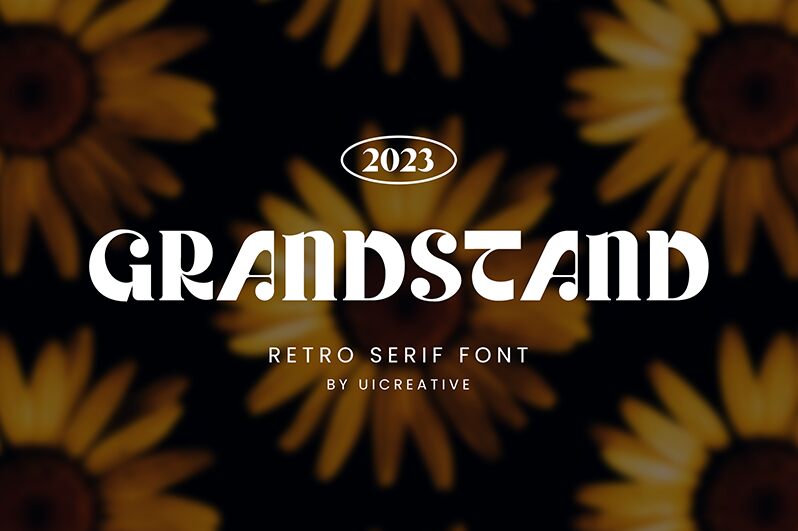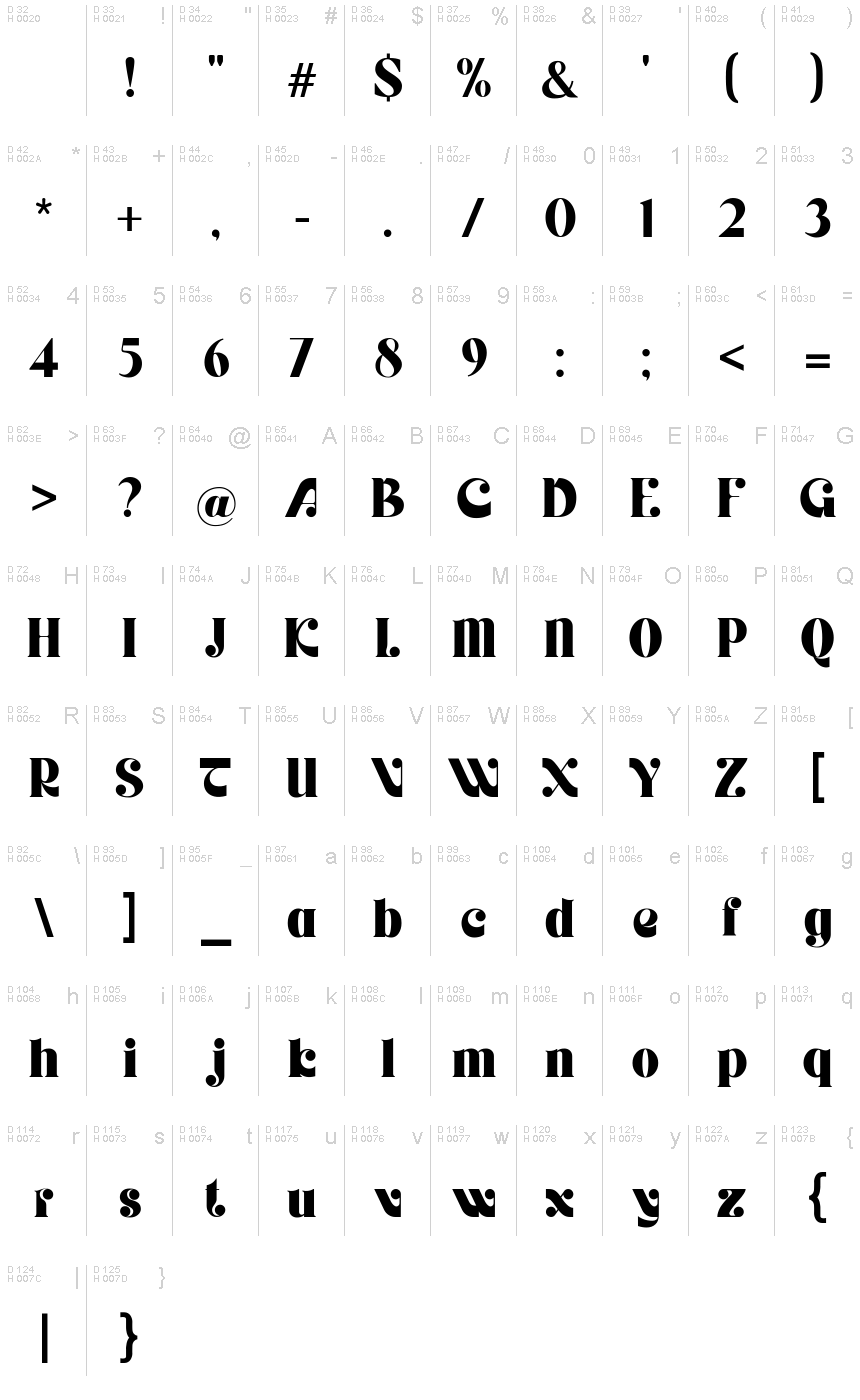
Grandstand, a bold and retro-inspired display font crafted by UI Creative, embodies a captivating vintage aesthetic. With its striking letterforms and robust character, this font exudes an alluring sense of nostalgia and timelessness. The bold, chunky shapes and asymmetrical details create a visually engaging and impactful typographic presence, making Grandstand a standout choice for designers seeking to evoke a retro-chic ambiance.
Grandstand's versatility extends across a wide range of design applications, from eye-catching headings and logos to product packaging and editorial layouts. Its strong, attention-grabbing personality lends itself particularly well to branding and advertising projects, where the font's commanding presence can effectively grab the audience's attention and convey a sense of vintage-inspired authenticity. Whether used for bold headlines, captivating poster designs, or vintage-inspired product labels, Grandstand's distinctive flair will elevate any design with a touch of retro-futuristic charm.